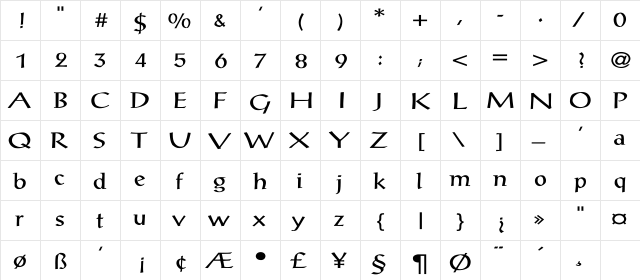
PostAntiqua-Light Wd Regular
Design Context for PostAntiqua-Light Wd Typeface
PostAntiqua-Light Wd offers clean, dependable letterforms without strong stylistic allegiance, making it a practical choice for designers who need flexibility. Its slender proportions lend an understated elegance to any composition.